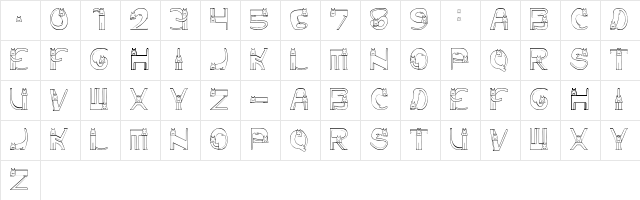
Vamp Kitten Regular Free Font
Vamp Kitten Regular
Design Context for Vamp Kitten
Vamp Kitten is a composed and adaptable typeface that performs quietly and consistently across a wide range of design contexts.